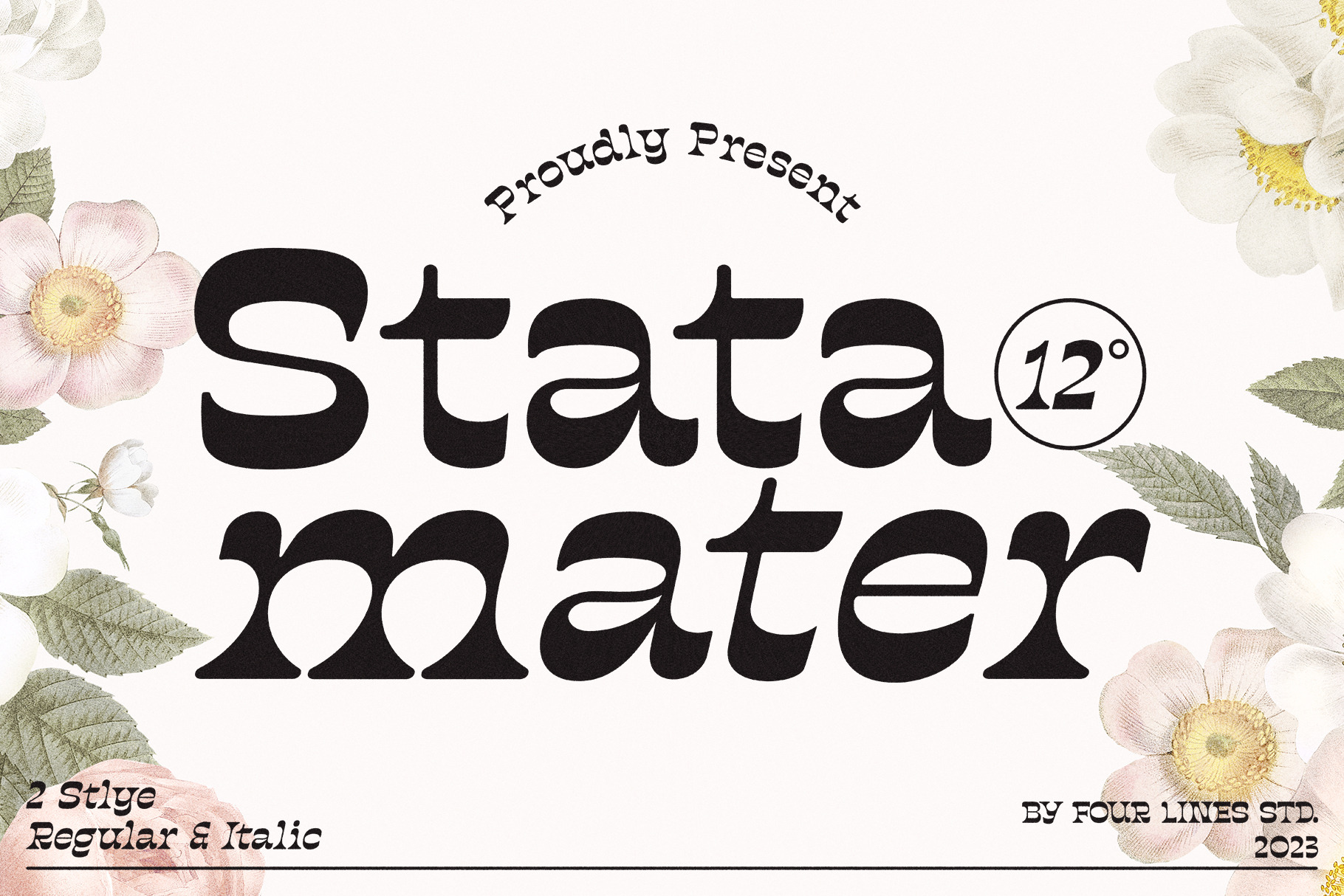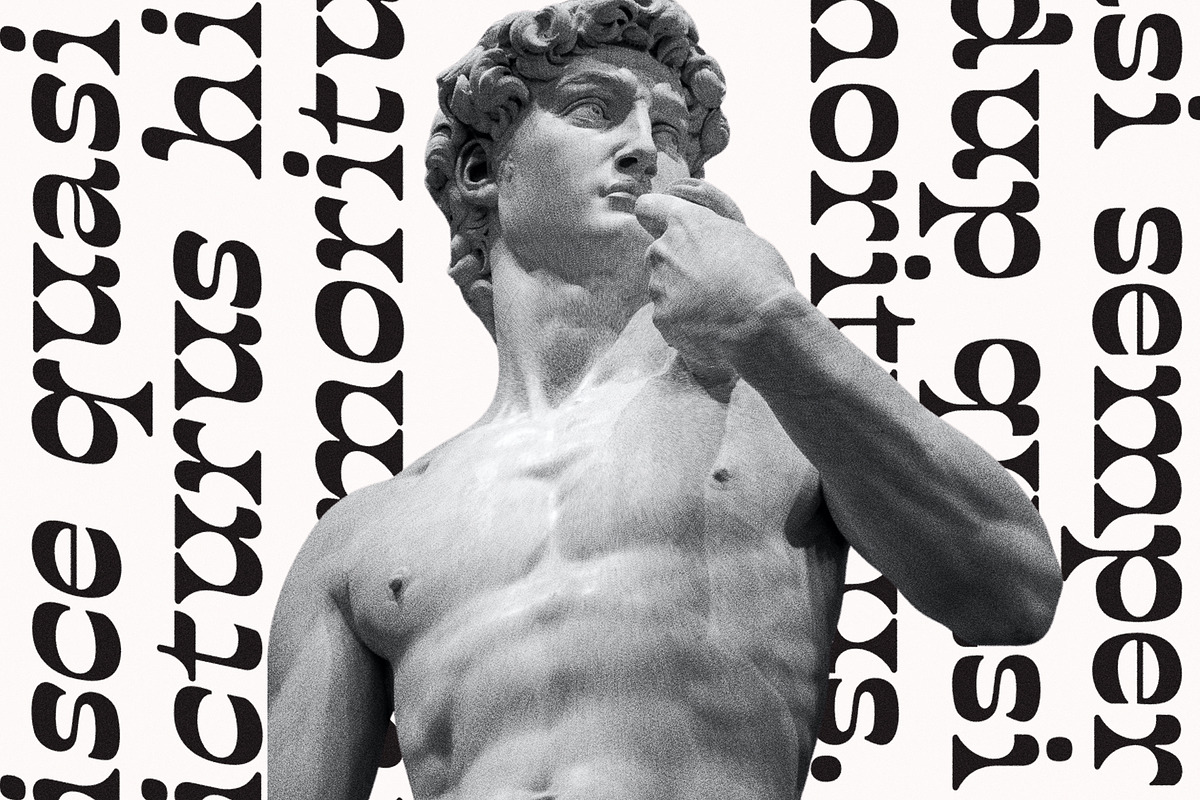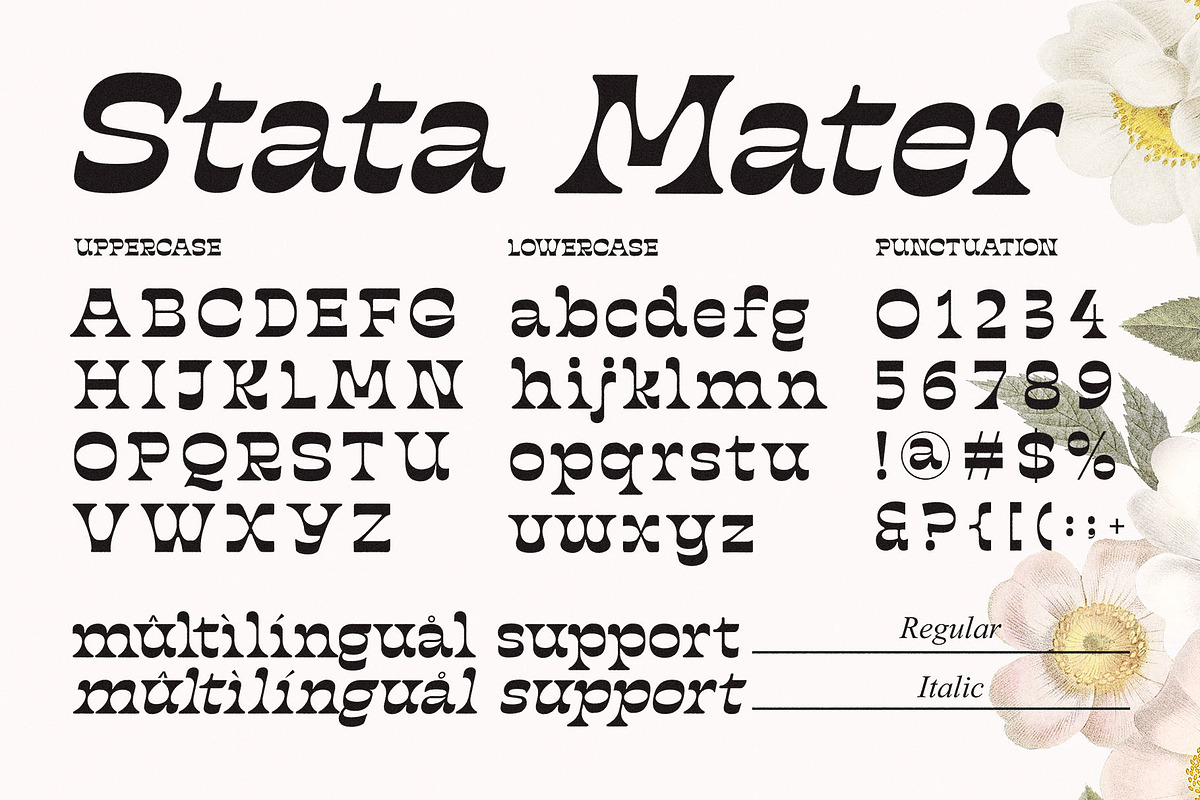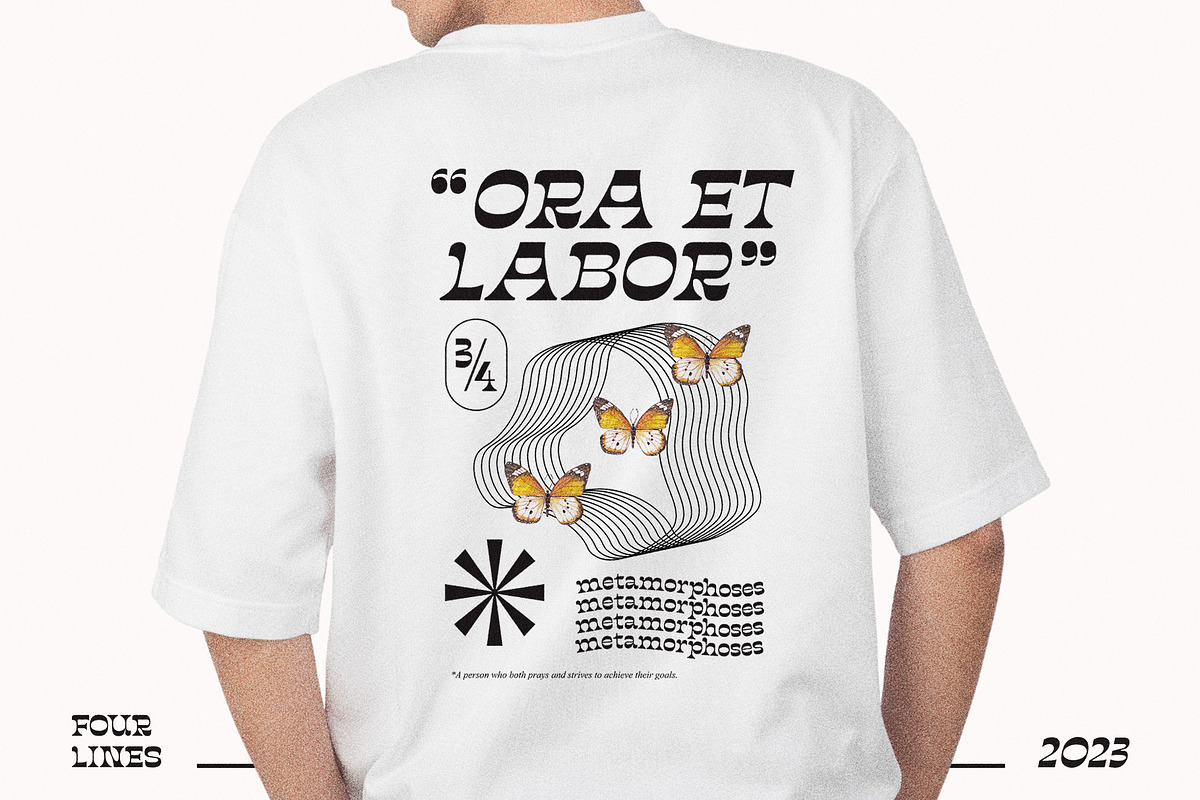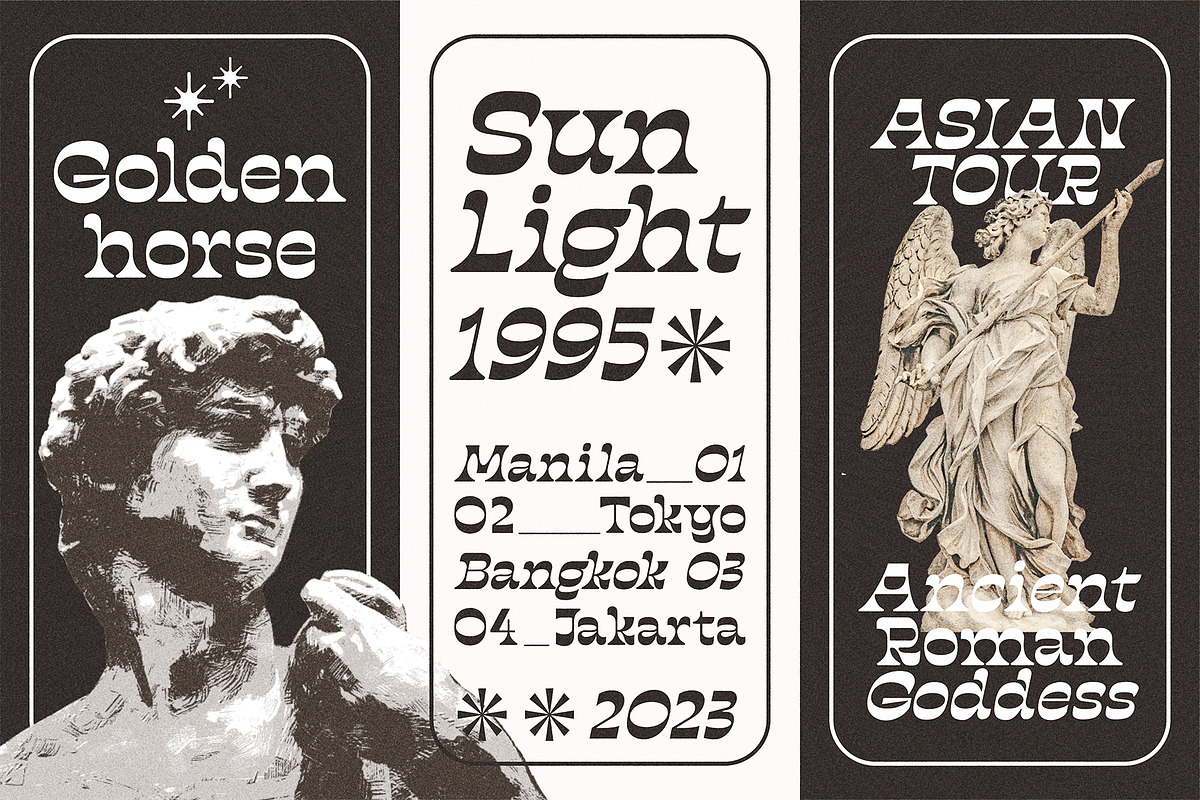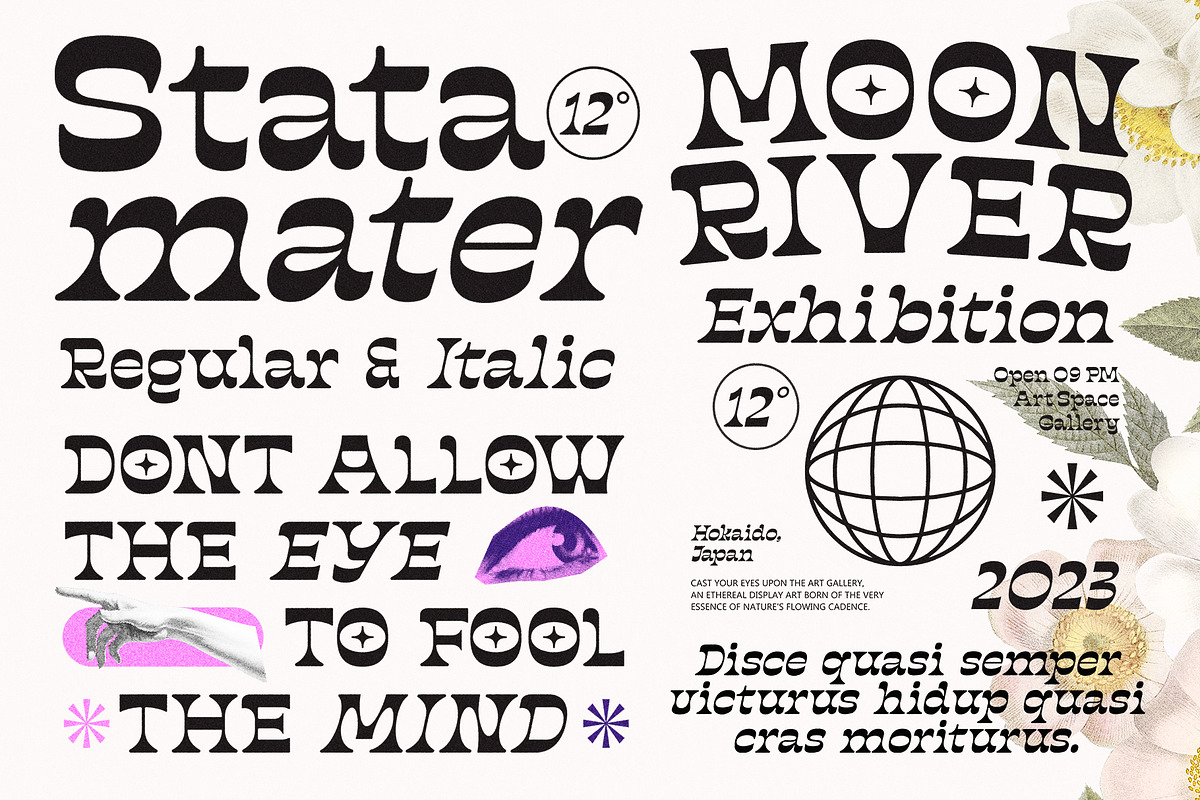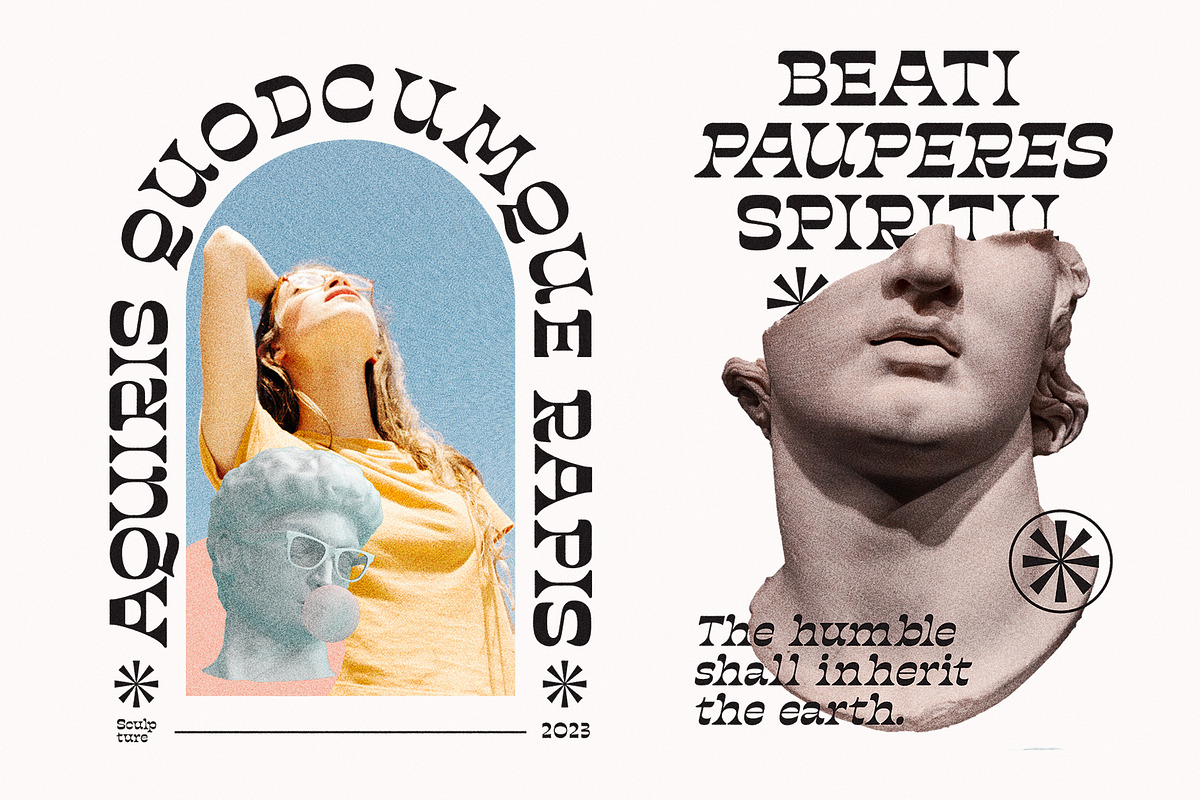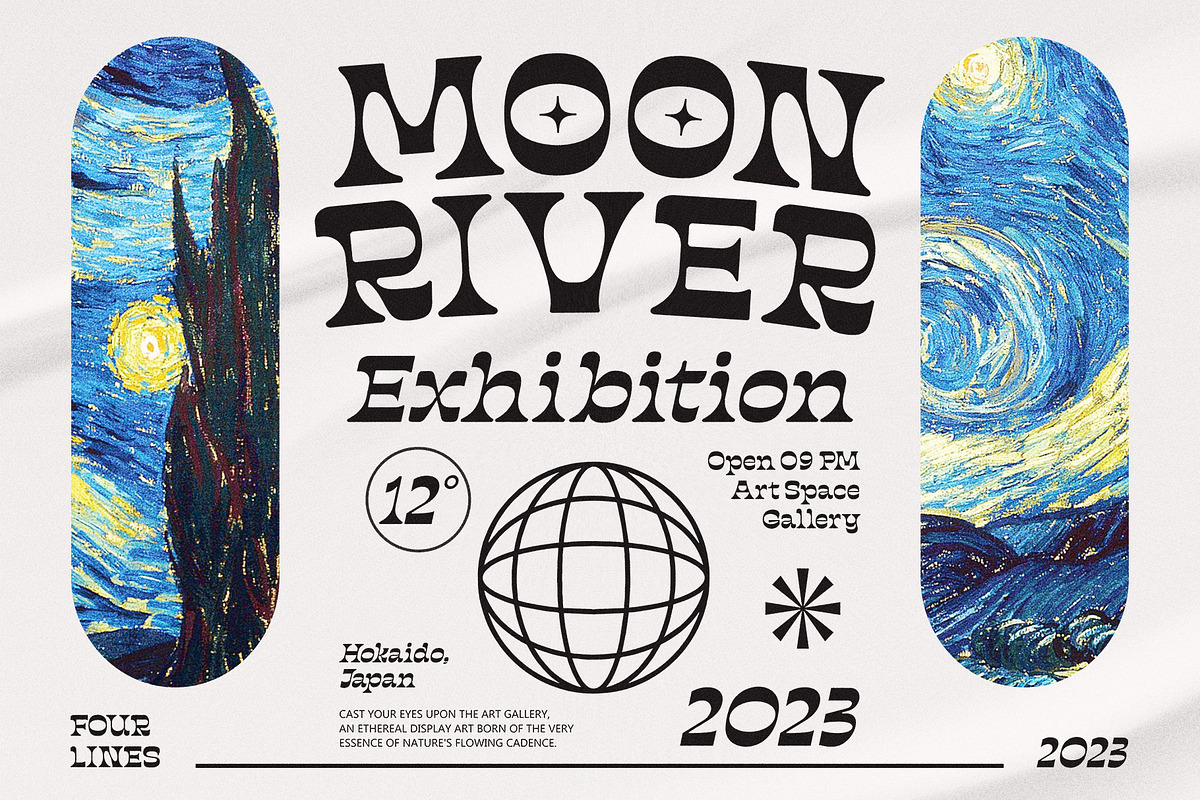
Stata Mater – Classic Serif Font
Introducing Stata Mater Font: A Timeless Blend of Classic Serif Elegance. A meticulously crafted font that seamlessly fuses classic serif styling with a touch of vintage sophistication. Designed for those who appreciate the artistry of typography, Stata Mater offers a perfect blend of tradition and modernity, making it the ideal choice for projects seeking a aesthetic.